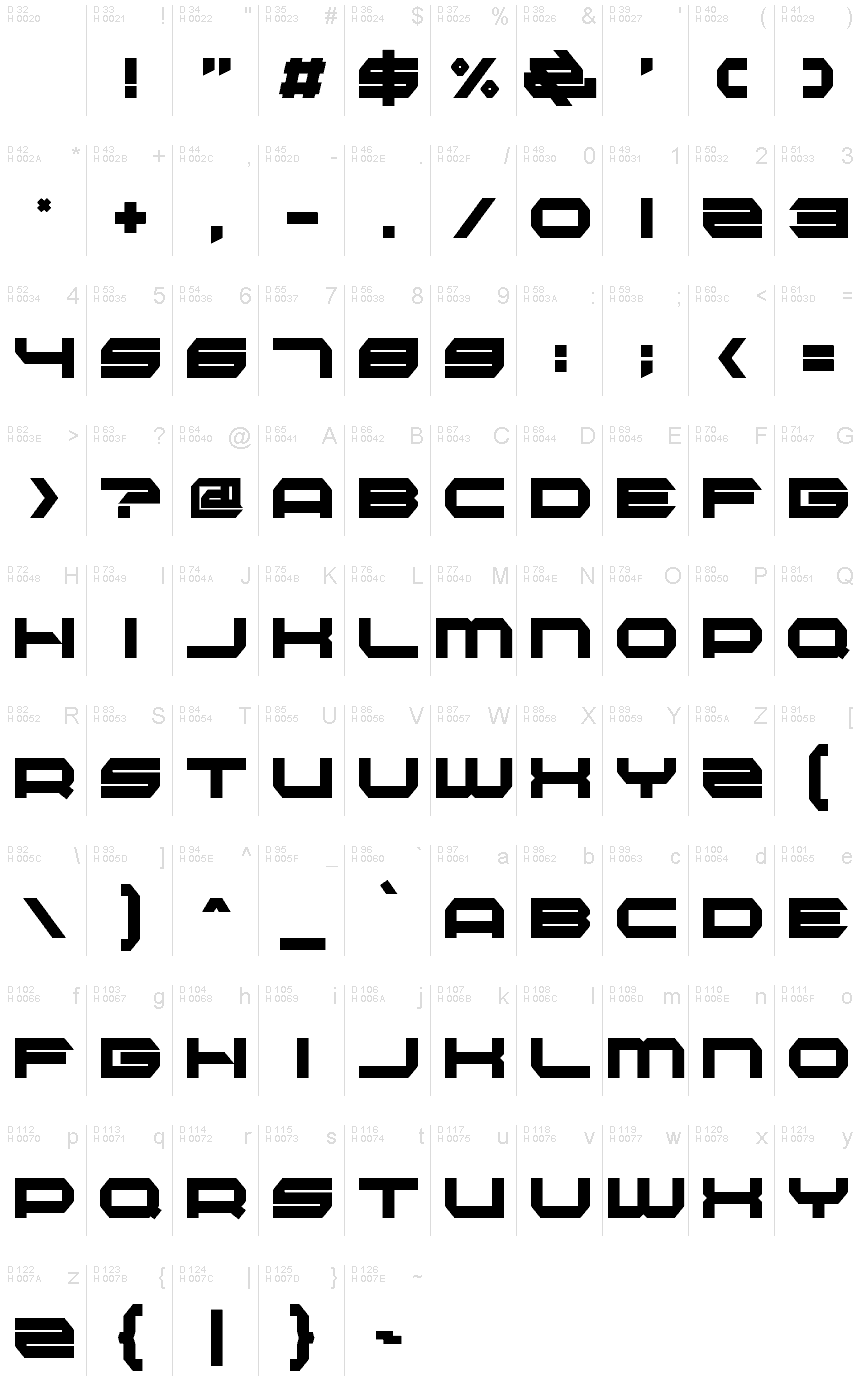
BEXAGO
Bexago font by Enxyclo Studio is a bold, expanded futuristic font with a geometric design that evokes an aura of modernism and technology. With an angular and structured look, this free display font stands out in contemporary applications of all sorts including those in technology branding and digital interfaces. Because of its industrial feel, it can be a nod to the Brutalist architecture movement or influence from digital typography like that seen with electronic music venues and events.